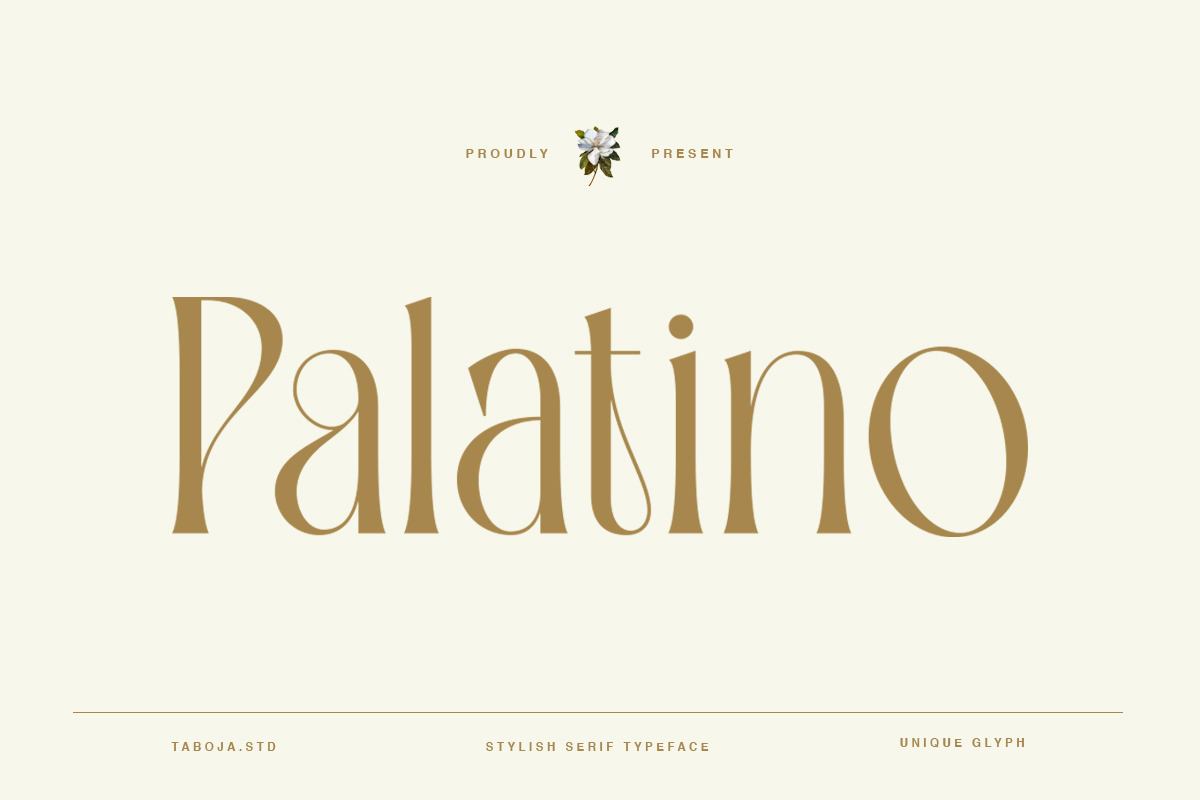
TBJ Palatino Stylish Serif Font Free Download is a refined and elegant typeface that draws inspiration from classic serif traditions, updated with a modern twist. With its sleek lines, graceful serifs, and balanced proportions, this font is perfect for editorial design, branding, high-end packaging, and formal invitations.
Its stylish and versatile appearance makes TBJ Palatino ideal for projects that require a professional and timeless touch. Whether you're creating a fashion magazine layout or a luxury brand identity, this serif font brings clarity, charm, and sophistication to every word.
Bring elegance and impact to your design projects with TBJ Palatino—the serif font that speaks with confidence and style.